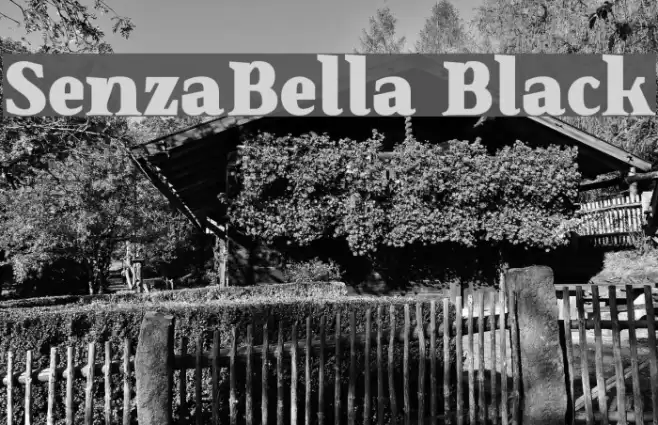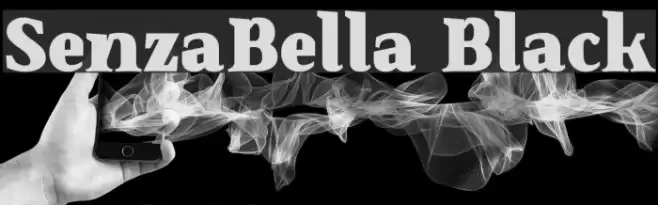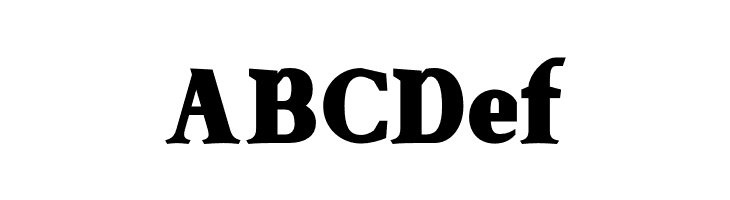
SenzaBella Black Font
SenzaBella Black Description
This font features a bold and dramatic style with high contrast between thick and thin strokes, giving it a strong visual impact. The serifs are pronounced and angular, adding a touch of elegance and sophistication. The uppercase letters are robust and commanding, while the lowercase letters maintain a consistent weight, ensuring readability. The numerals are distinct and bold, matching the overall aesthetic. Special characters are well-integrated, maintaining the font's cohesive appearance. This font's unique style makes it suitable for projects that require a strong and memorable typographic presence.
A bold, high-contrast serif font with pronounced serifs and a dramatic style from Uncategorized fonts.
- Proposed Projects: Ideal for headlines, branding, posters, and any design requiring a strong typographic statement.
- Overall Style: Classic